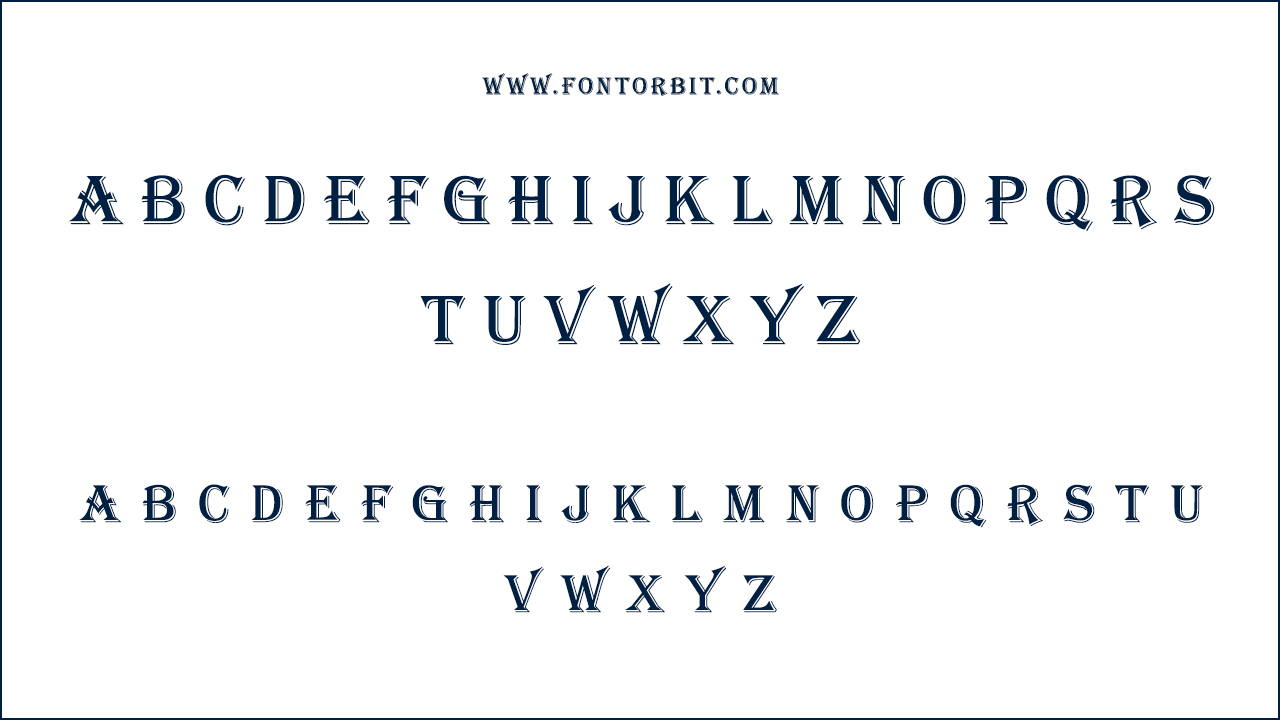
Algerian Font is a decorative serif typeface with a rich history, originally produced by British foundry Stephenson, Blake and Co. in the early 20th century.
The design is owned by Linotype, while the name ‘Algerian’ is a trademark of the International Typeface Corporation. Known for its distinctive style, Algerian Font has evolved over the years and is now available in a variety of styles and weights.
The Algerian Font Family Includes
- Algerian Regular
Algerian Font frequently appears in branding and promotional materials where a decorative and impactful typeface is needed. Its evolution has made it a versatile choice for modern design applications, from product packaging to digital content. Algerian Font’s bold and decorative style is ideal for various design applications:
- Logos: Notably used in the Patrón tequila logo since 1989.
- Branding: Creating distinctive and memorable brand identities.
- Product Packaging: Enhancing labels and packaging with a decorative flair.
- Event Invitations: Adding a sophisticated touch to invitations and event materials.
- Creative Projects: Enriching various artistic and design endeavors.
Algerian Font’s bold and ornate design captures the essence of early 20th-century decorative typography. Its numerous updates and expansions have kept it relevant, making it a versatile choice for various creative and branding applications. Pairing Algerian Font with modern design elements can create a striking contrast and enhance its visual impact.
1.What Are The Key Features Of Algerian Font That Make It Unique?
Algerian Font is known for its bold, decorative serif style with ornate, vintage-inspired elements. Its distinctive uppercase letters and strong visual impact set it apart from other typefaces.
2.What Are The Design Principles To Consider When Using Algerian Font?
Focus on balance and contrast, ensuring the ornate design complements rather than overwhelms. Use it sparingly for headlines or emphasis, and avoid it for body text to maintain readability.
3.What Are The Best Practices For Using Algerian Font In Web Design?
Utilize Algerian Font for headlines and key visual elements, avoiding body text to ensure readability. Combine it with clean, modern fonts for contrast, and use responsive design to adapt to various screen sizes.
4.What Is The Difference Between Algerian Font And Other Decorative Fonts?
Algerian Font features a unique, vintage serif style with bold, ornamental elements. Unlike other decorative fonts, which may have different themes or design aesthetics, Algerian is more distinctive in its ornate appearance.
5.What Color Palette Is Typically Used With Algerian Font?
Algerian Font is often paired with bold, contrasting colors, highlighting its decorative features. High-impact color schemes enhance readability and the font’s ornate design.